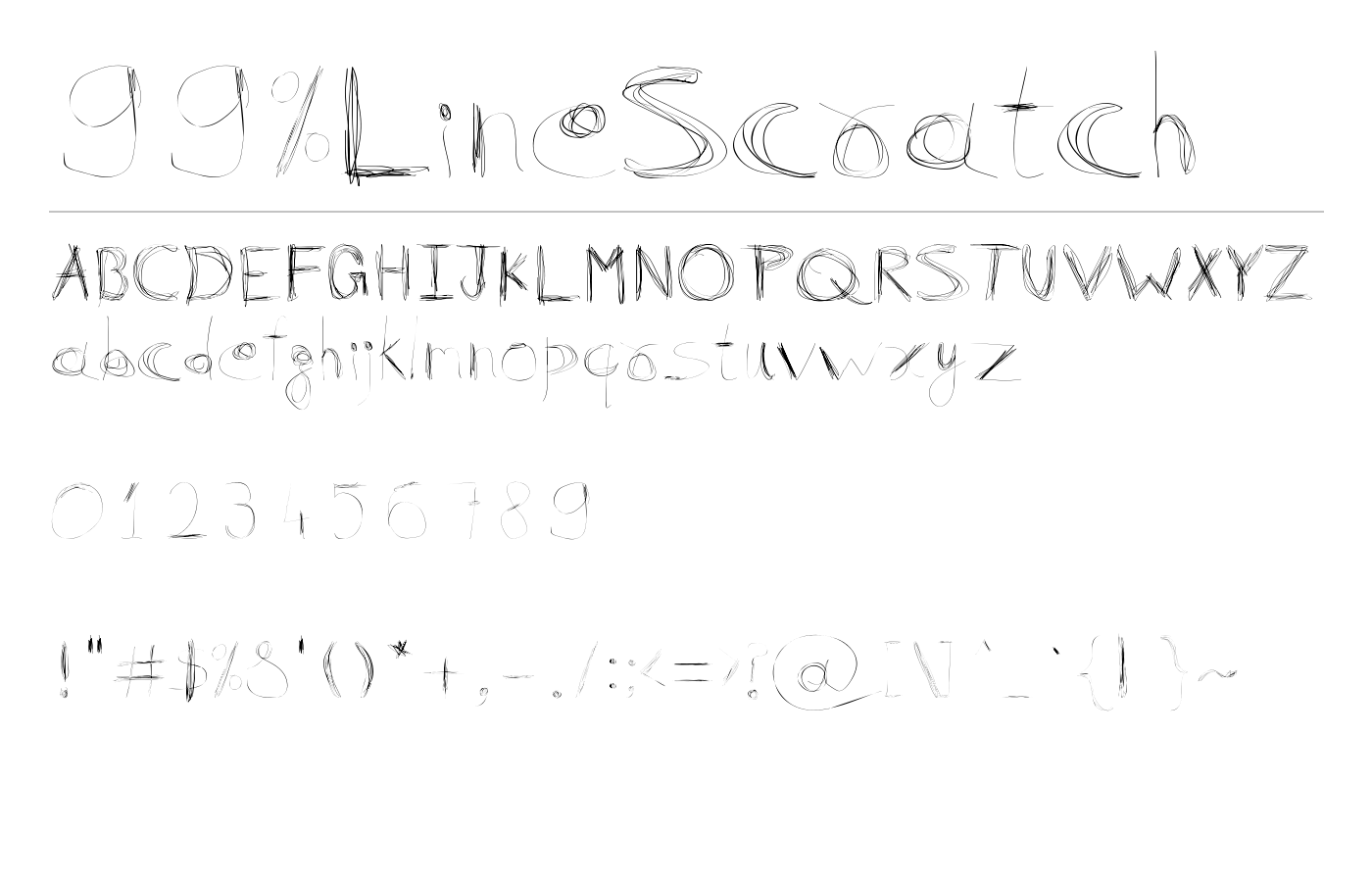
99%LineScratch is a unique, hand-drawn sans serif font with a sketch-like, scribbled appearance that gives it an informal and artistic vibe. Its light weight and airy spacing create an expressive, playful style ideal for creative projects, casual branding, or designs needing a raw, hand-crafted touch. This font works best for headlines, logos, and designs seeking a distinctive, energetic personality.
99%LineScratch Font
About 99%LineScratch Font
| Font family | 99%LineScratch Font |
| Designer | Habib Shaikh |